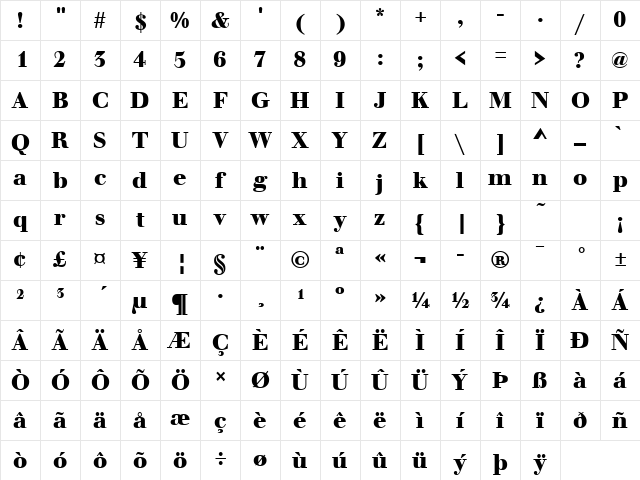
Walbaum Bold
Walbaum Family
Walbaum Bold
Complete Walbaum Bold glyph index. Displaying only characters natively supported by Walbaum Bold font.
Design Context for Walbaum
Walbaum is a composed and adaptable typeface that performs quietly and consistently across a wide range of design contexts. Its bold stroke weight gives it real presence on the page.